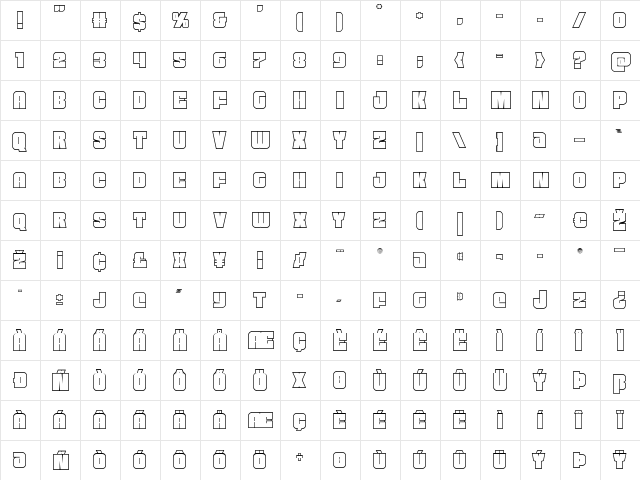
Funk Machine Outline Regular
Design Context for Funk Machine Outline Typeface
Funk Machine Outline trades formality for fun, with bouncy, characterful letterforms that bring warmth and energy to any project.
Font Pairing: Pairs well with a rounded or humanist sans for body copy, maintaining the friendly tone without relying on Funk Machine Outline to carry extended reading.
Pro Tip: Avoid using Funk Machine Outline for long passages of text — it works best for headlines, labels, and short calls to action.